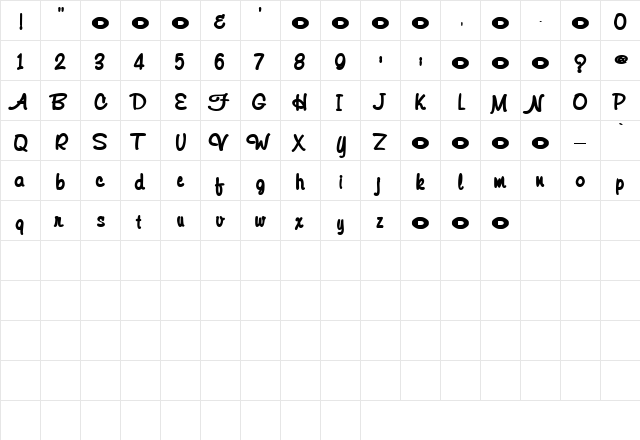
Echo&Sway Regular
Design Context for Echo&Sway Typeface
Echo&Sway is a composed and adaptable typeface that performs quietly and consistently across a wide range of design contexts.